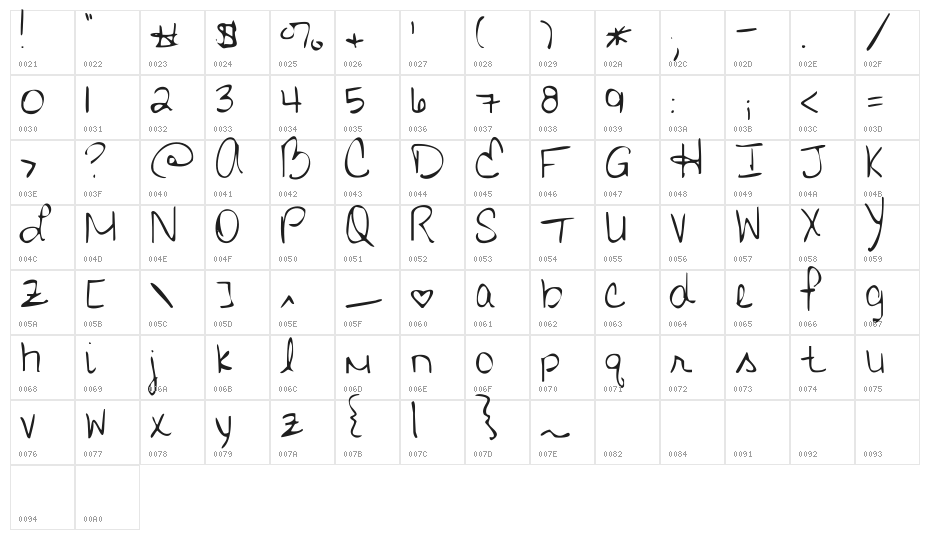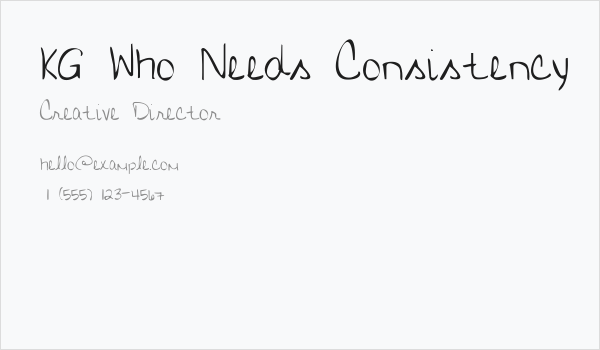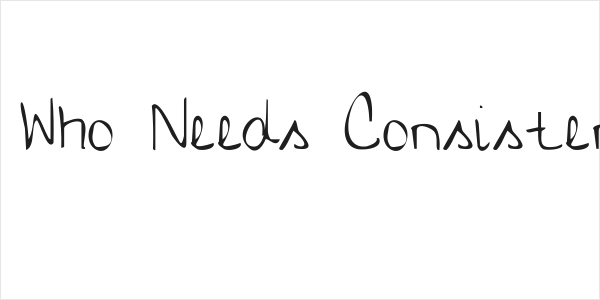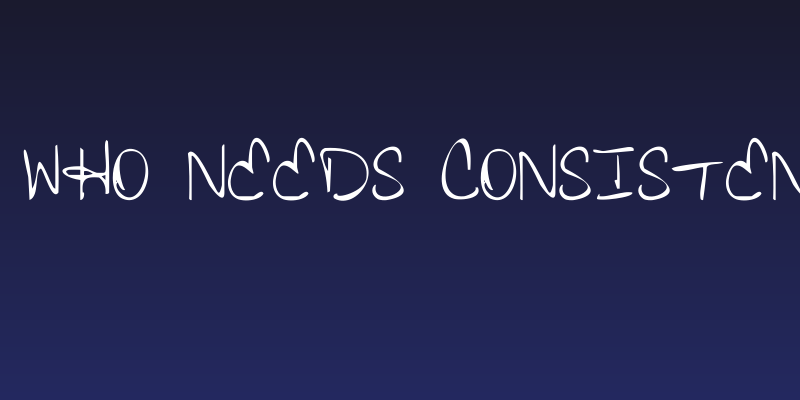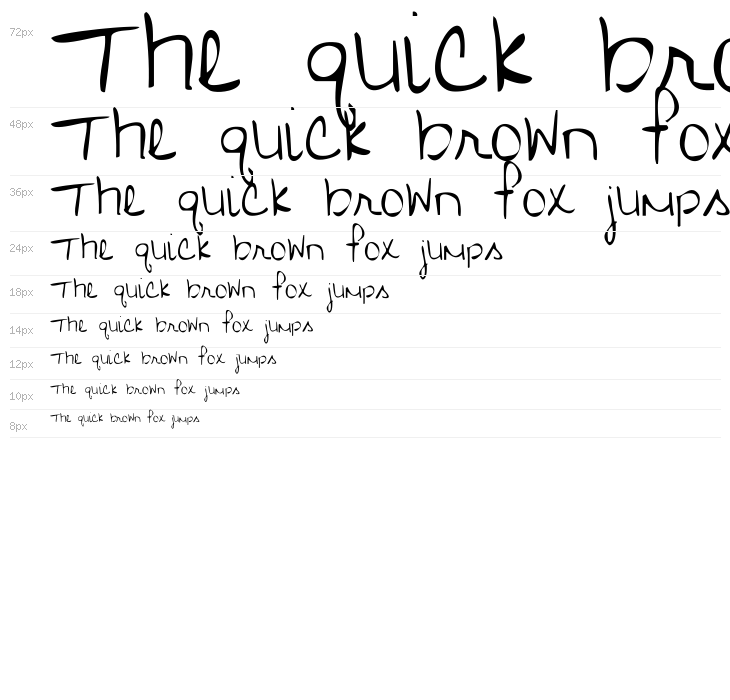
KG Who Needs Consistency Font
KG Who Needs Consistency Description
This font exudes a playful and casual handwritten style, characterized by its uneven strokes and whimsical appearance. The letters are freeform, with varying heights and angles, giving it a dynamic and lively feel. The uppercase letters are bold and prominent, while the lowercase letters maintain a consistent flow, enhancing readability despite their informal nature. The numbers and special characters follow the same playful aesthetic, making them suitable for creative and informal contexts. The overall design is reminiscent of a child's handwriting, which adds a touch of innocence and charm.
| Proposed Projects | Ideal for children's books, playful branding, greeting cards, and informal invitations. |